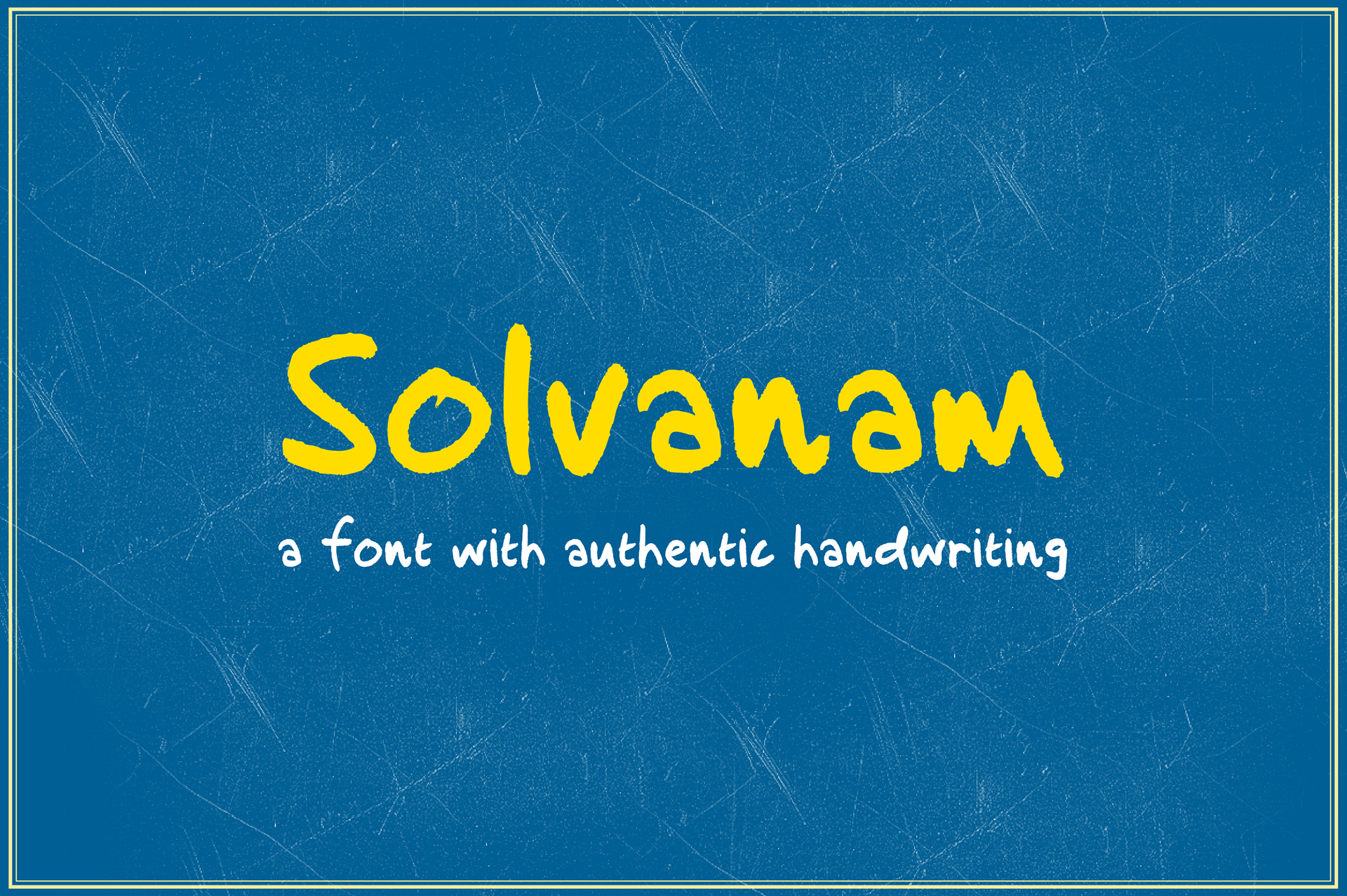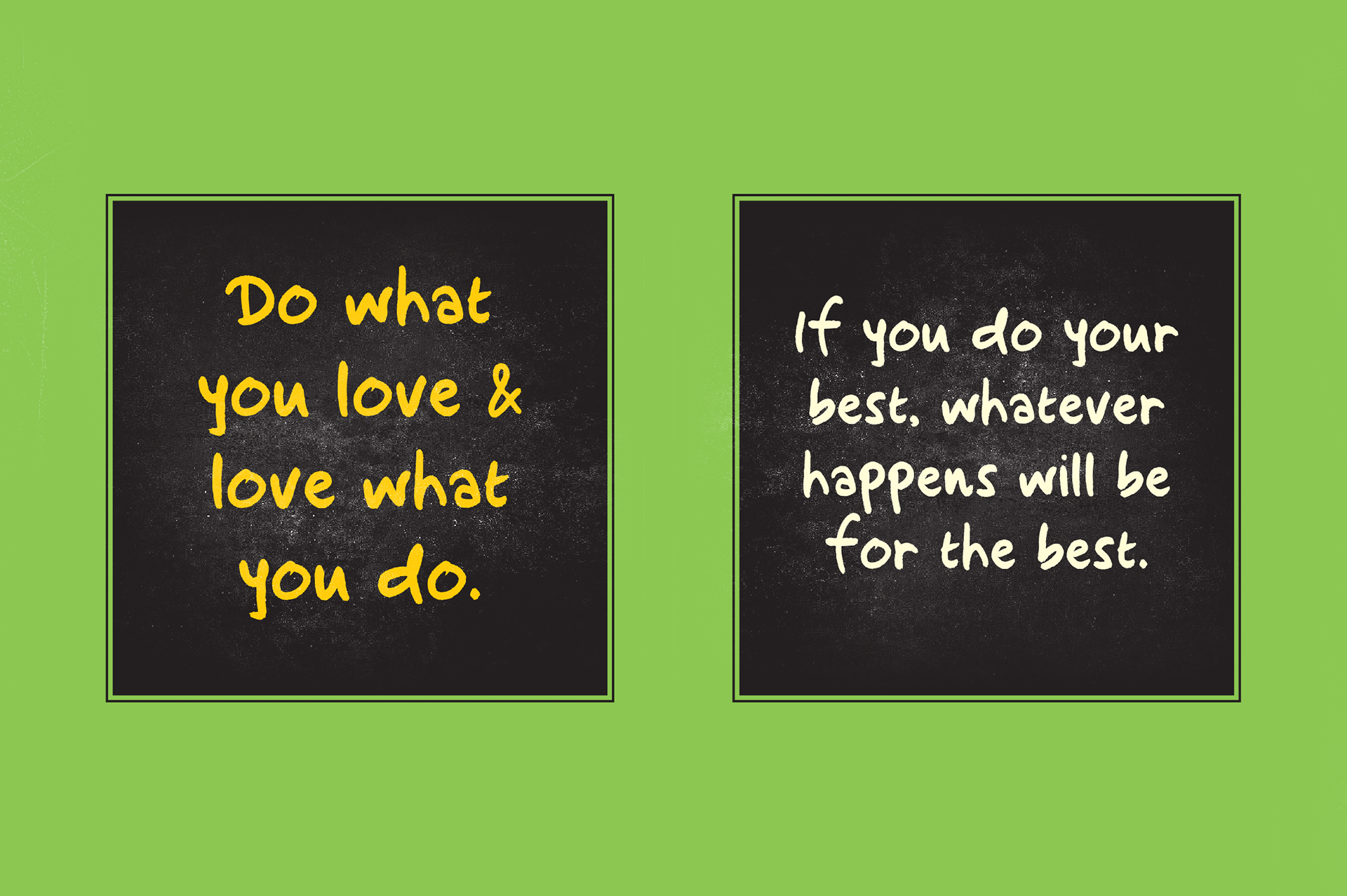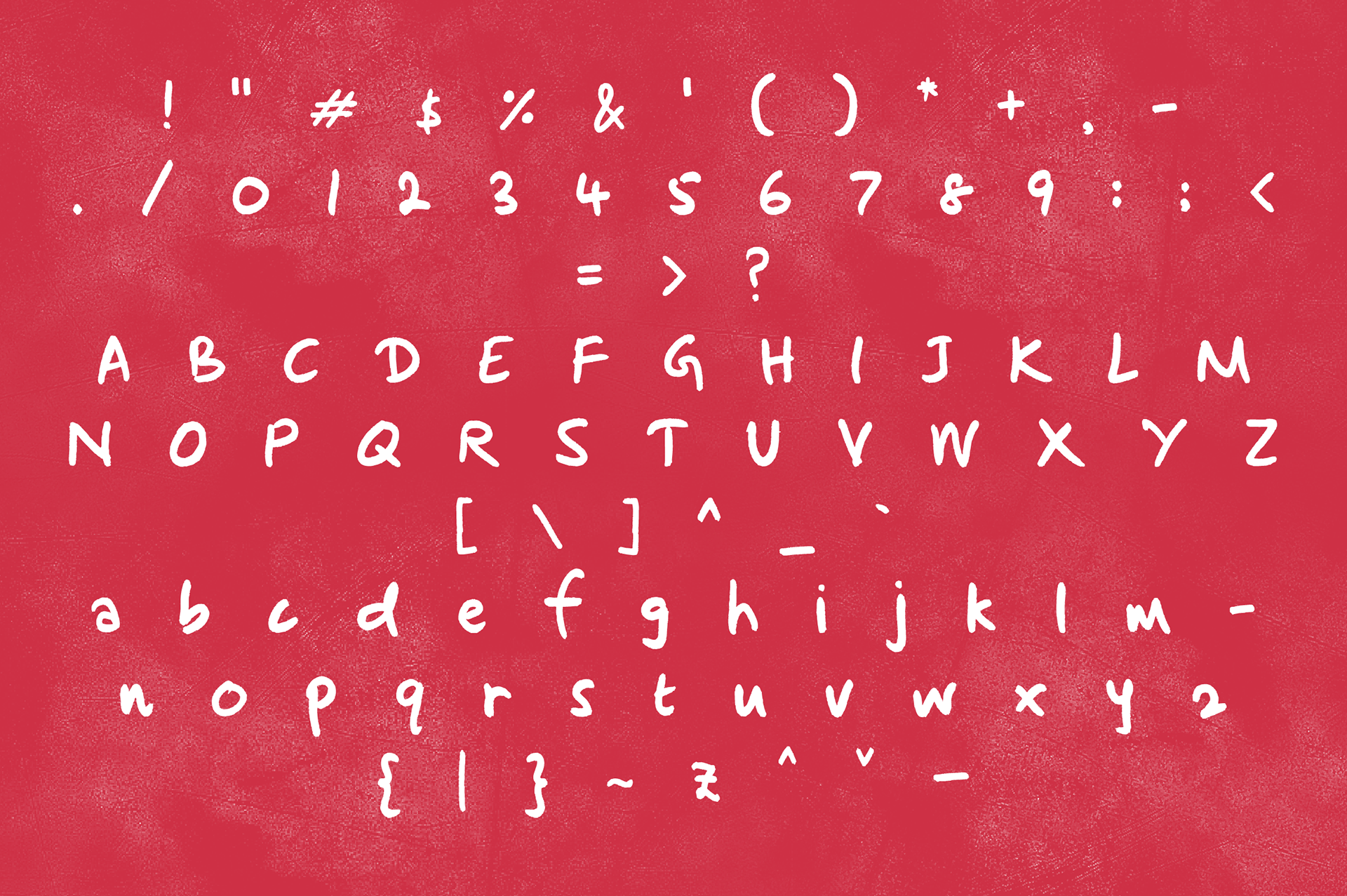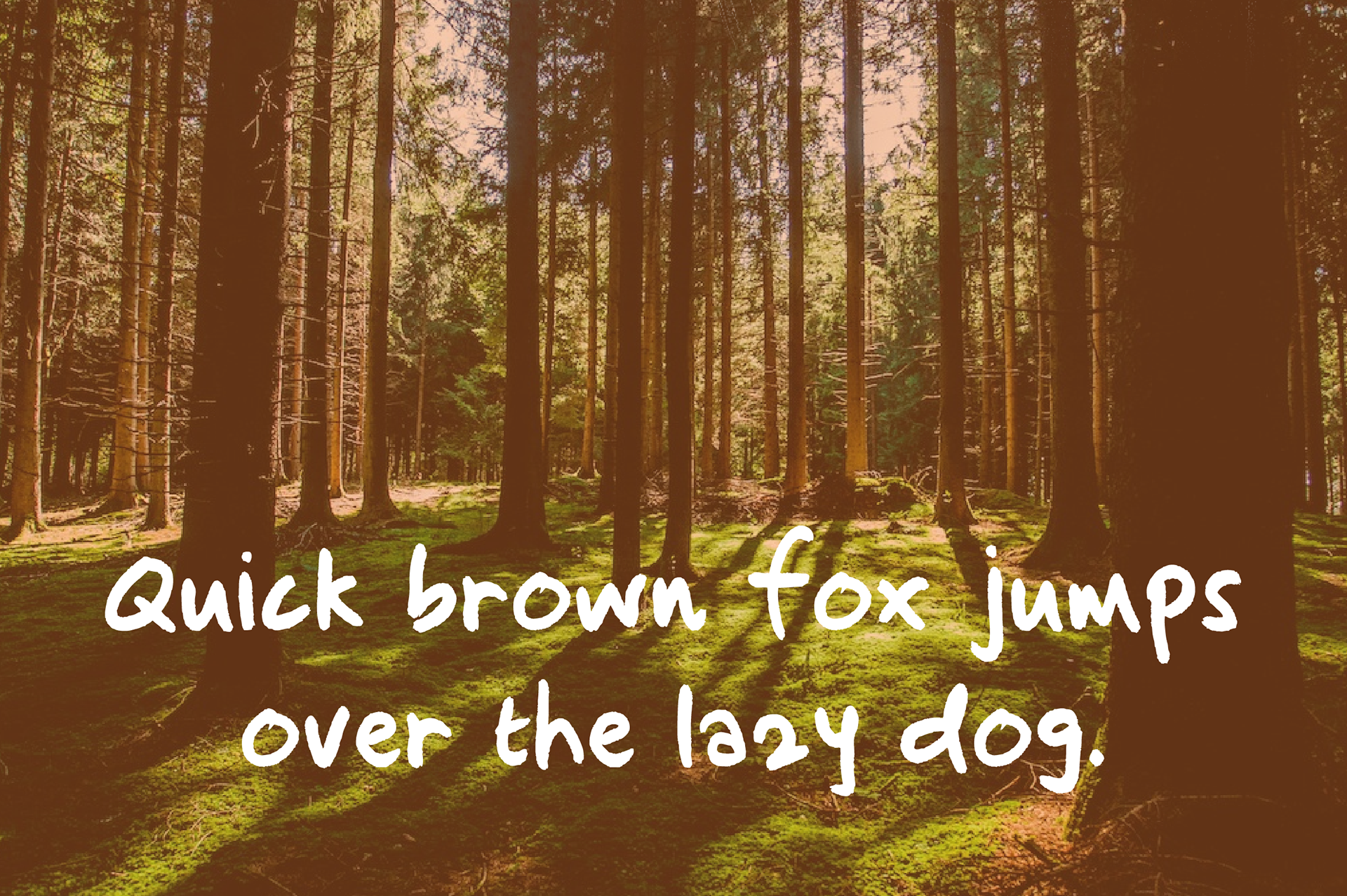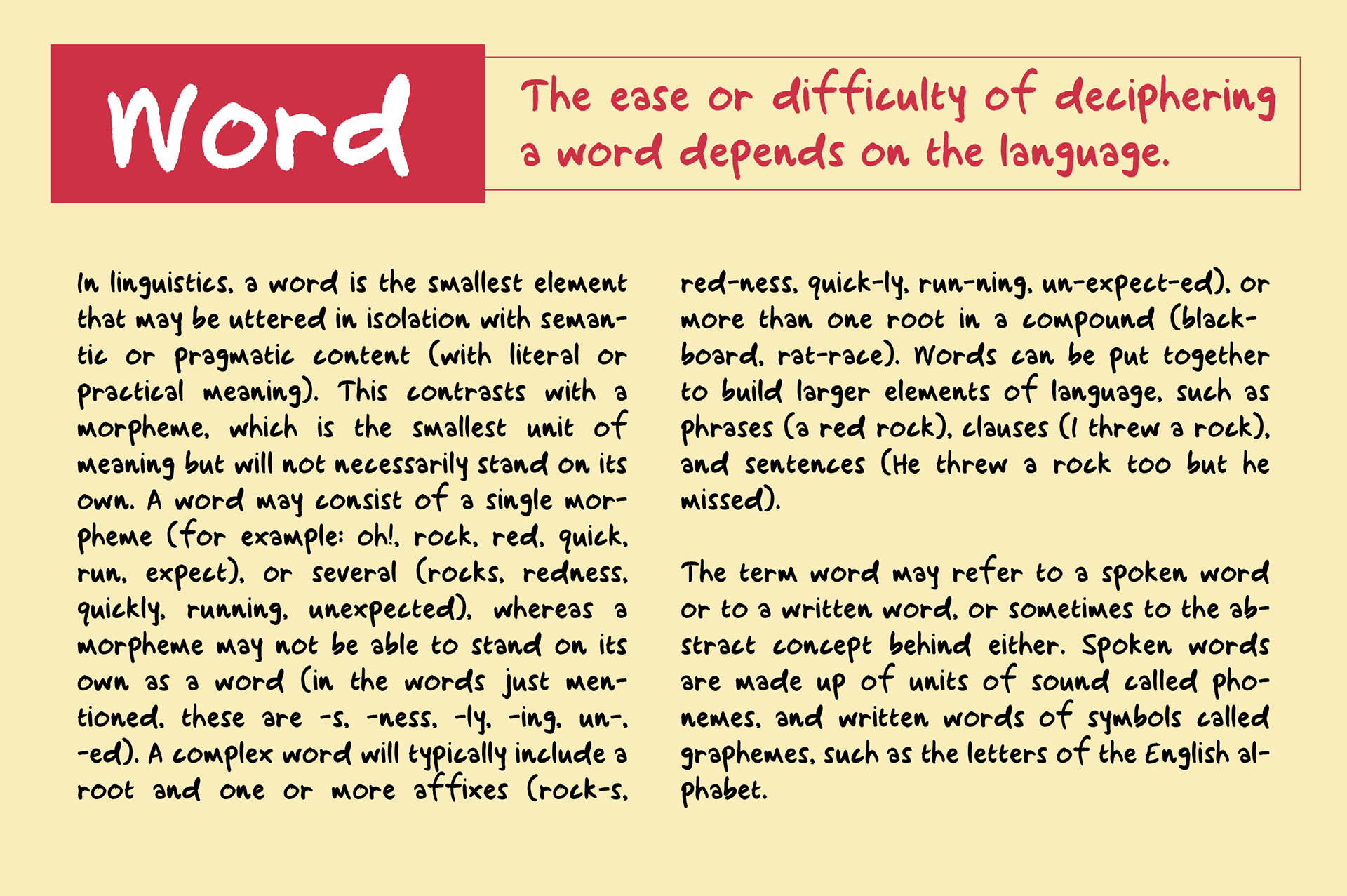
Solvanam is a unique and authentic handwriting font, that will help you to design authentic stuff with love. You can use it for your invitations, labels, posters, comic, log sheet, letters and anything under the sun that involves typeface in it. Solvanam fits all places and sync very well with your designs in no time. So why wait, go and grab your copy, here please.